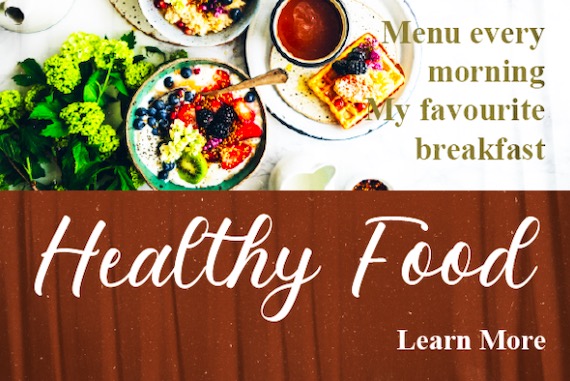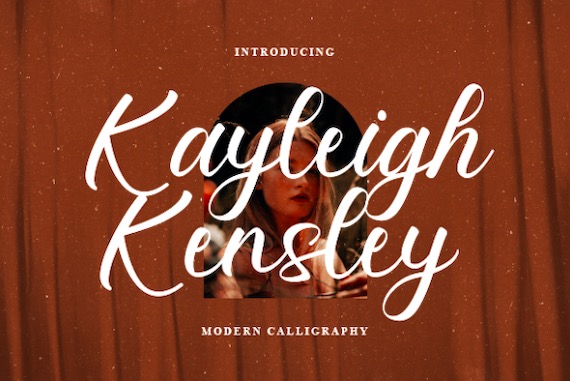
Kayleigh Kensley Font is a flowing and cursive handwritten script typeface that was created and shared by Circle Studio. You can use this script font for various designs such as blog posts, logos, branding, ads, invitations, greeting cards, planners, photo albums, decorations, and much more.
Kayleigh Kensley Calligraphy Script Font